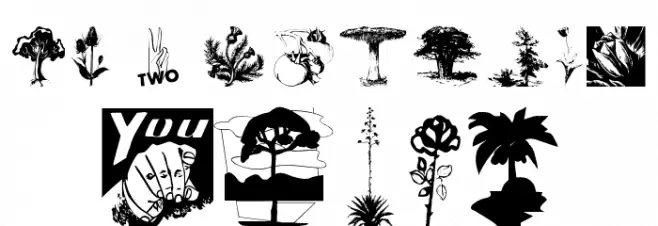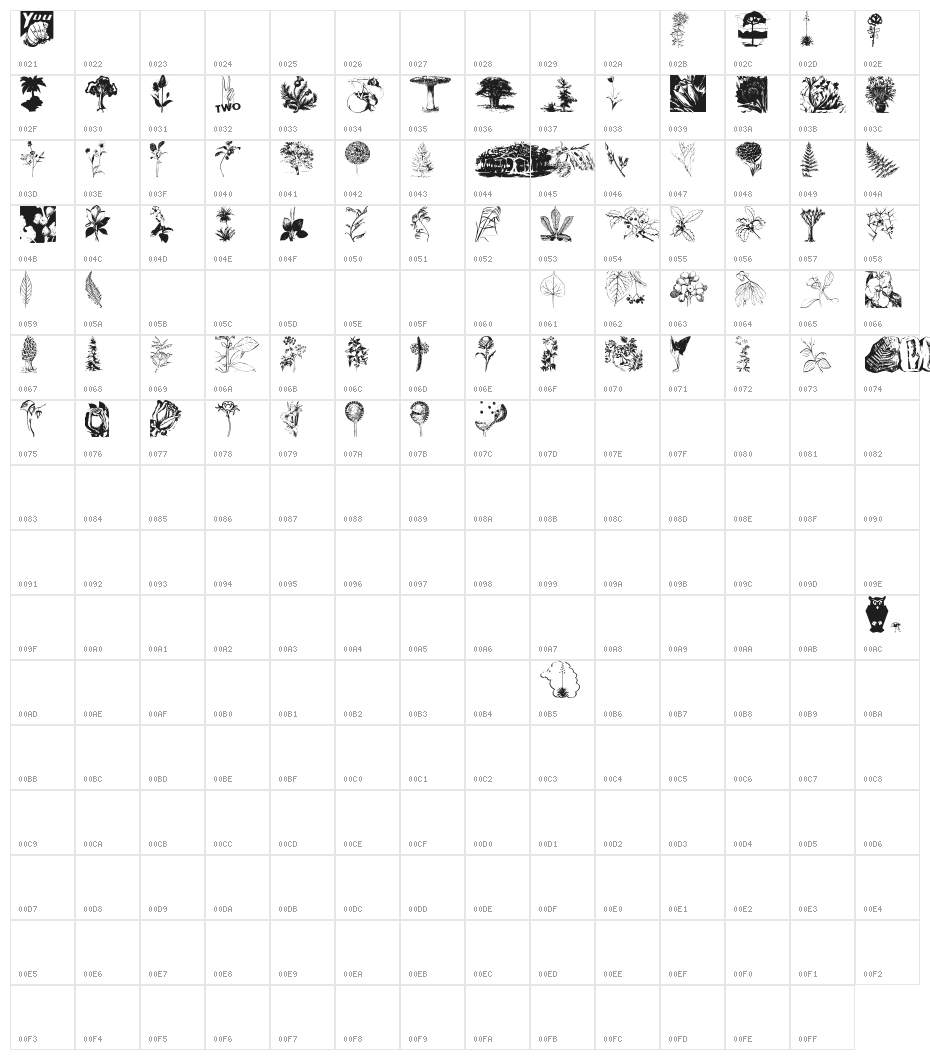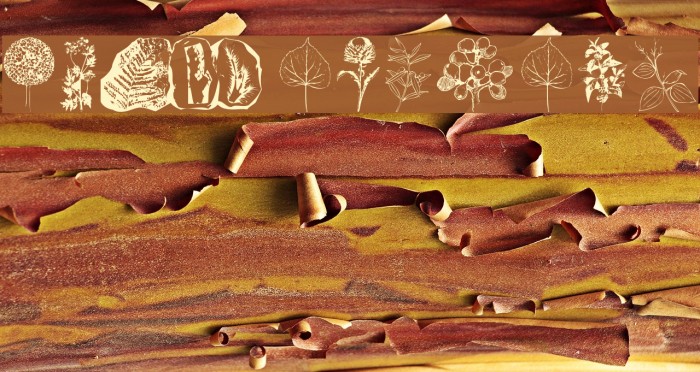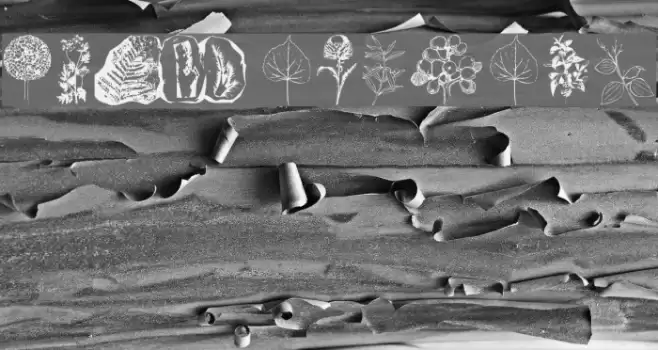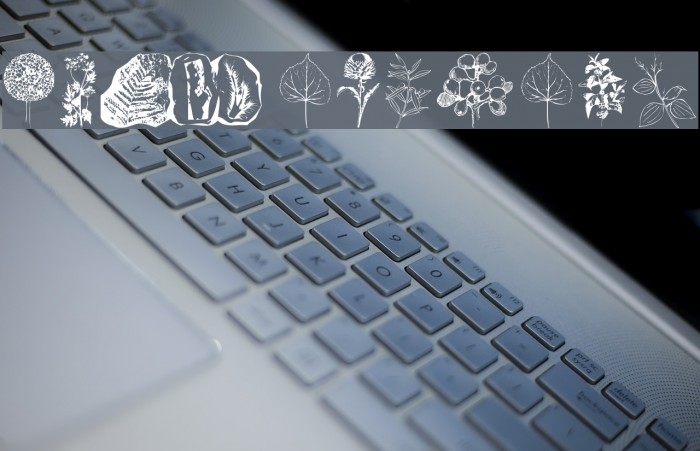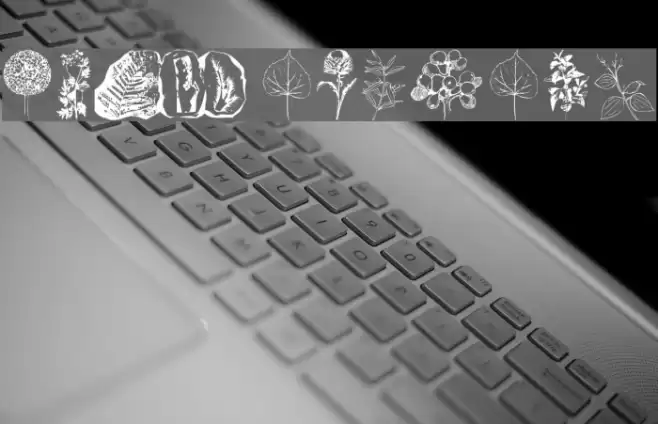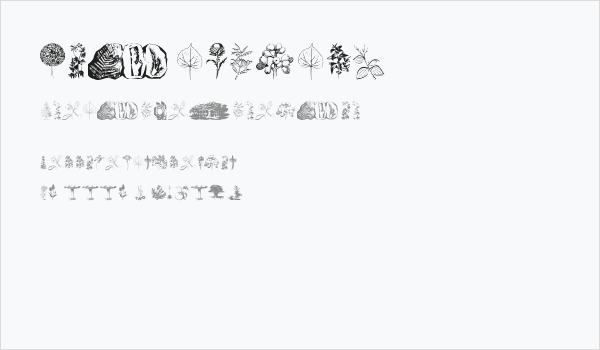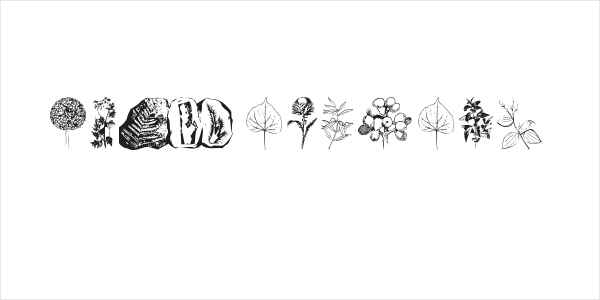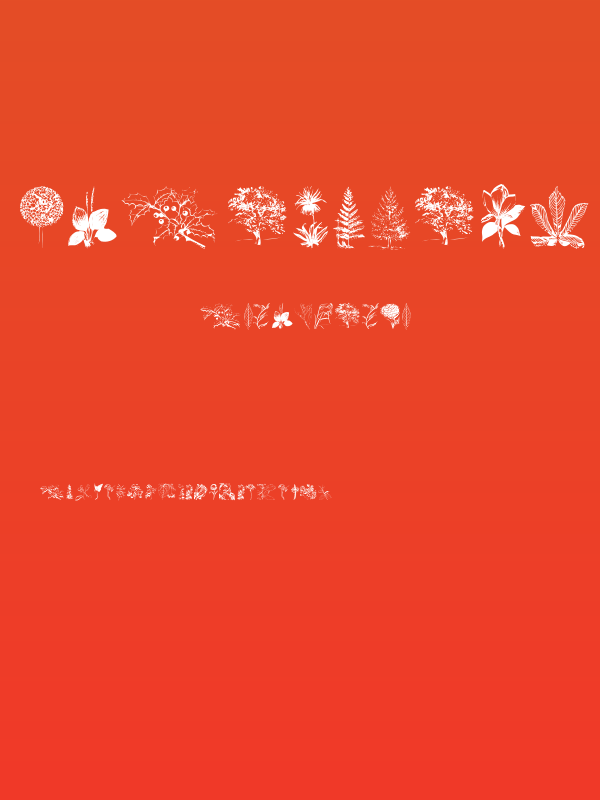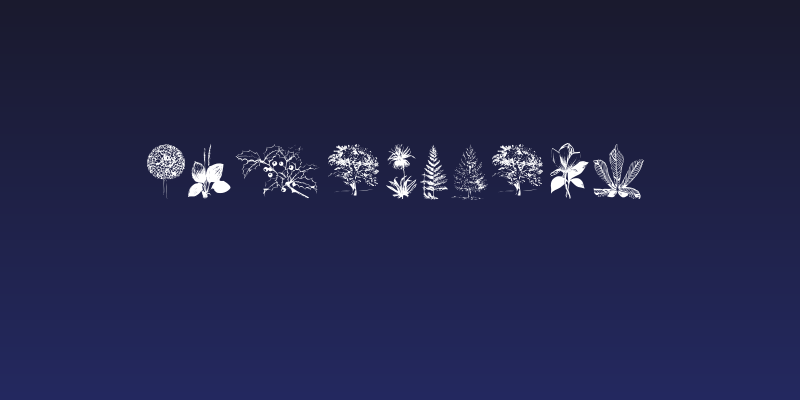
Botanicals Font
Botanicals Description
A collection of detailed botanical illustrations featuring a wide variety of plants, trees, flowers, leaves, fruits, and seeds, rendered in black and white with both fine linework and bold silhouettes. The images range from realistic to stylized, with some incorporating graphic or collage elements.
| Overall Style | Decorative, Naturalistic, Artistic |
| Use Case | Decorative elements, Illustrations, Branding, Educational visuals |
| Proposed Projects | Botanical posters, educational materials, packaging design, branding for organic products, textile prints, greeting cards, book illustrations. |